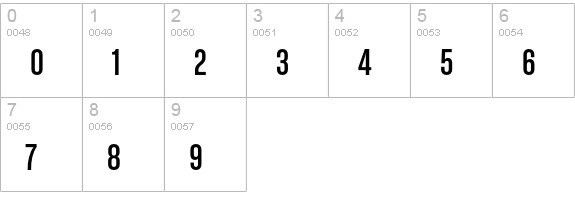
ChaletComprime CologneSixty Font Details
ChaletComprime CologneSixty is a modern and sleek font that exudes sophistication and elegance. With its clean lines and sharp edges, this font is perfect for creating a bold and impactful design. The geometric shapes and precise spacing give ChaletComprime CologneSixty a contemporary and refined look that is sure to make a statement. Best of all, this font is available for free download at FontsMarket.com. Whether you're working on a branding project, creating a sleek website design, or designing eye-catching print materials, ChaletComprime CologneSixty is a versatile font that will elevate your work to the next level. Don't miss out on the opportunity to add this stunning font to your collection today!